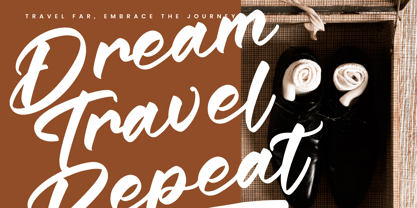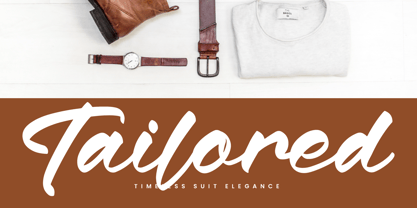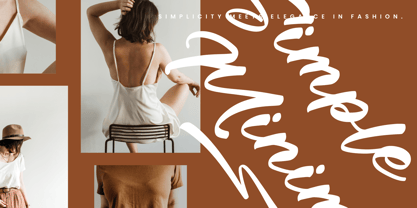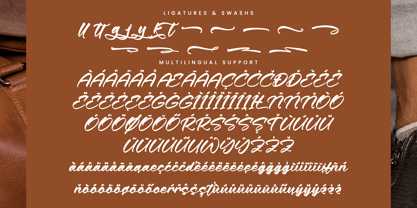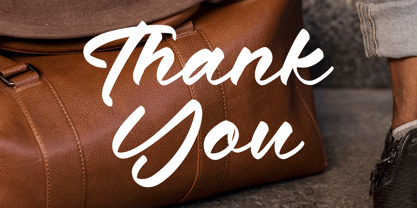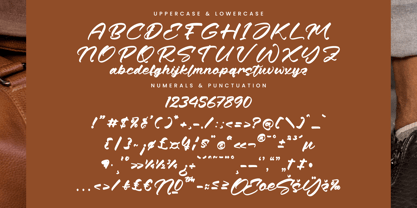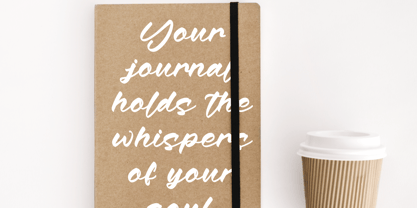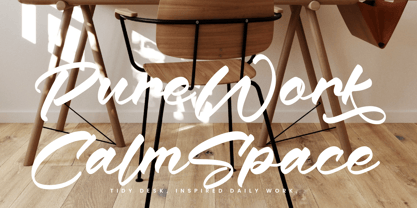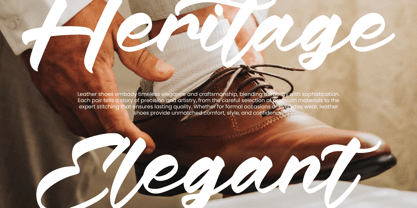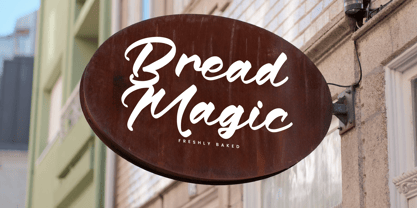
Baskito Velvett
by Integritype
The Baskito Velvett Font Family was designed by Ranndy Rizky Febrian and published by Integritype. Baskito Velvett contains 2 styles and family package options.
Baskito Velvett - A Modern Bold Script Font, from Integritype Studio, perfect for any project like: logos, branding projects, homewares designs, product packaging, mugs, quotes, posters, shopping bags, t-shirts, covers books, business cards, invitation cards, greeting cards, labels, photography, watermarks, special events and all your other luxury projects that require a premium taste.